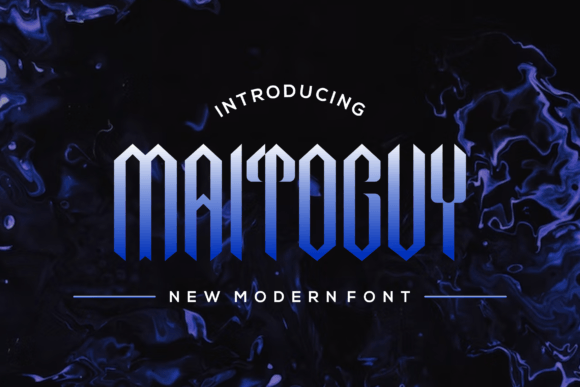
Immerse yourself in the world of Maitoguy, a blackletter font that exudes beauty, class, elegance, and modernity. This creation by prayoga_std invites you to explore a world of endless possibilities, empowering you to transform your creative visions into tangible masterpieces.
Maitoguy's timeless charm captures the essence of sophistication, making it the perfect companion for a myriad of projects. Whether you're designing a stunning signature logo, crafting elegant stationery, or creating captivating magazine covers, this font will elevate your work to new heights.
Step into the realm of fashion and let Maitoguy's allure adorn your clothing designs. Its intricate details and flowing curves will add a touch of luxury and exclusivity to your creations. Watch as your brand takes center stage, leaving an unforgettable impression on all who behold it.
Unleash your creativity and delve into the world of typography quotes. With Maitoguy as your trusted ally, your words will come alive, captivating readers with their eloquence and depth. Experience the joy of seeing your thoughts and emotions transformed into visually stunning masterpieces.
Maitoguy's versatility knows no bounds. Whether you're designing website headers or packaging designs, this font will seamlessly adapt to your vision, enhancing every element with its captivating presence. Prepare to witness your designs transformed into works of art, leaving a lasting impact on your audience.
Embark on a journey of imagination and let Maitoguy guide you to new creative horizons. This font is your gateway to a world where elegance and innovation converge. Embrace the endless possibilities that await and watch as your creative dreams become a reality.